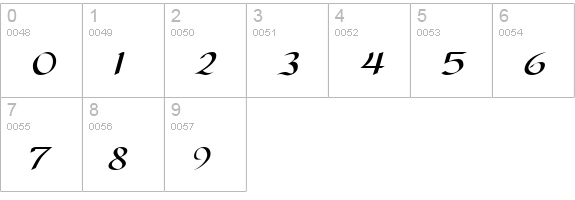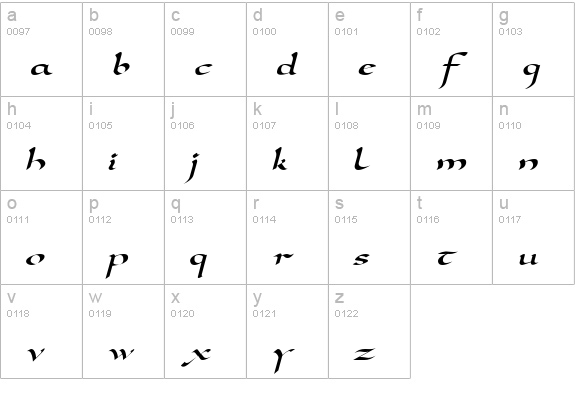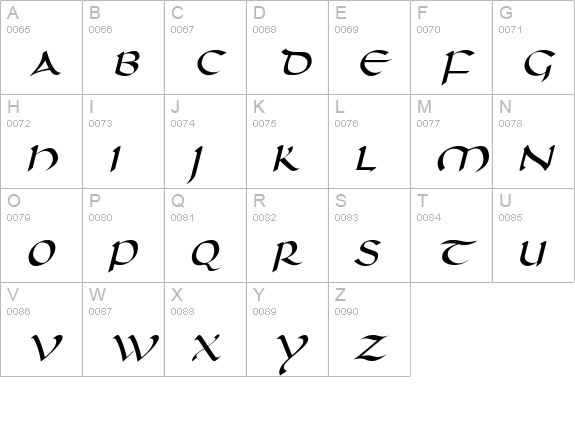
Samovar SSi Italic Font Details
Samovar SSi Italic is a distinctive, italic variant in the Samovar typeface family \xE2\x80\x94 well suited to design and typography projects.
The Samovar SSi Italic font is a beautifully crafted typeface that exudes elegance and sophistication. With its slanted and graceful letterforms, this italic variant adds a touch of flair and style to any design project. The flowing curves and unique strokes of the Samovar SSi Italic font create a sense of movement and dynamism, making it perfect for conveying a sense of energy and excitement. What sets the Samovar SSi Italic font apart is that it is available for free. That's right, this amazing font can be downloaded at no cost from FontsMarket.com. Whether you are a professional designer looking to add a touch of finesse to your latest project or an individual looking to elevate your personal creations, the Samovar SSi Italic font is a versatile option that won't break the bank. With its generous availability and wide range of applications, the Samovar SSi Italic font is a must-have for anyone who values quality and style in their designs. Whether you're designing a logo, creating a stunning website, or crafting eye-catching print materials, this font will elevate your work to new heights. Download the Samovar SSi Italic font today and experience the freedom of creating with a top-quality typeface that won't cost you a dime.